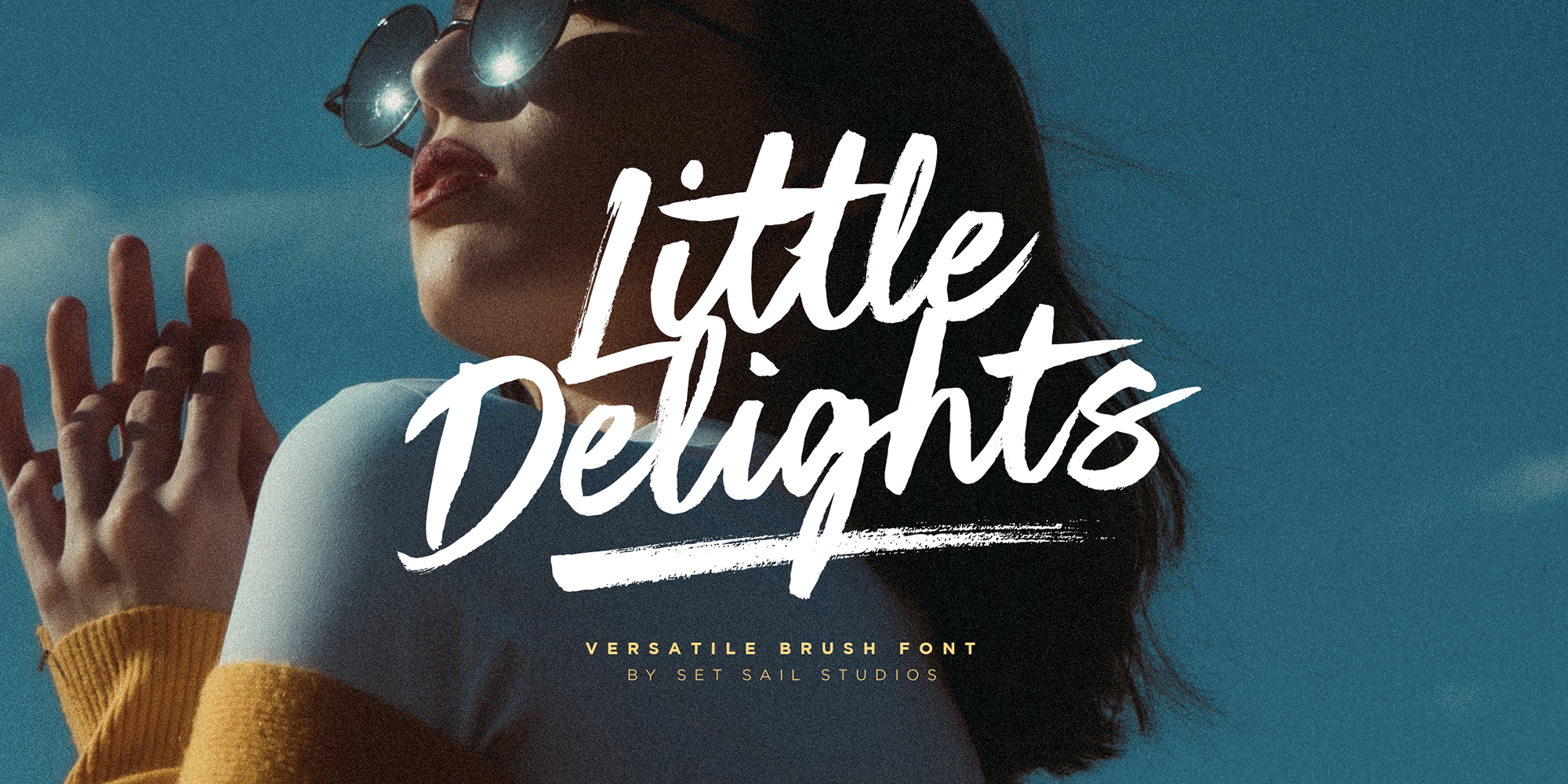
Little Delights Font Free Download is a charming and playful script font that brings warmth and joy to any creative project. Please note: you must purchase a license for commercial use — this font is available as a free download for personal and testing purposes only.
Ideal for children’s books, greeting cards, invitations, branding, social media posts, and crafts, Little Delights Font Free Download adds a friendly and approachable vibe with its whimsical curves and lively strokes.
What makes this font exciting is its handcrafted feel, smooth flow, and cheerful personality that instantly brighten up your designs and make them more inviting.
The Little Delights font family includes Regular and Bold styles, giving you versatility to create eye-catching and expressive typography.
If you want to add a touch of happiness and creativity to your projects, Little Delights Font Free Download is the perfect choice. Download it today, explore its delightful curves, and let your designs spread joy and charm.